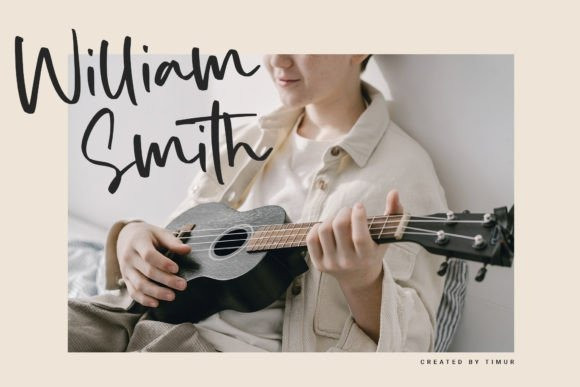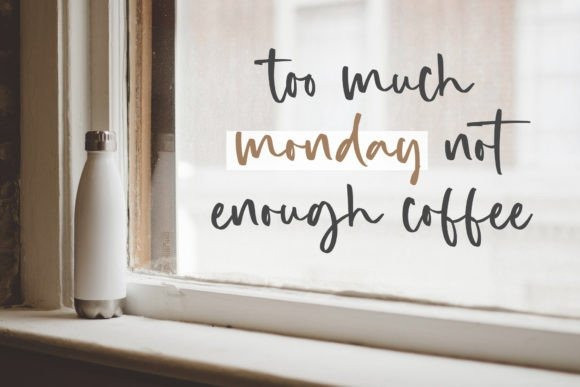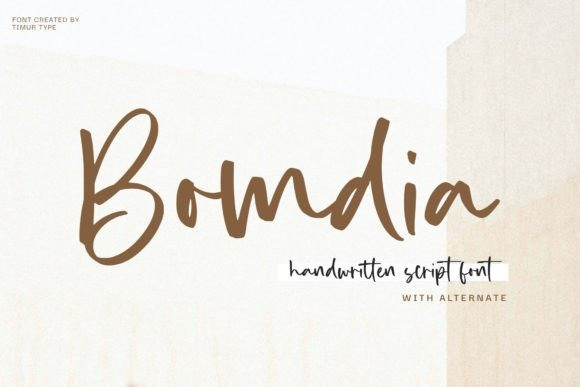
Bomdia Font
Bomdia Script Font, A Handwritten Font , which was created with great care and specially created for you
Bomdia is perfect for product packaging, branding project, megazine, social media, wedding, or just used to express words above the background.